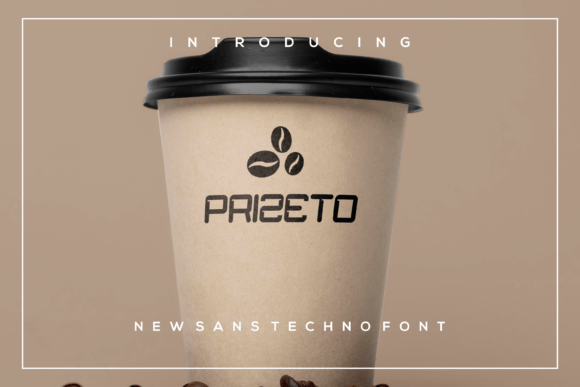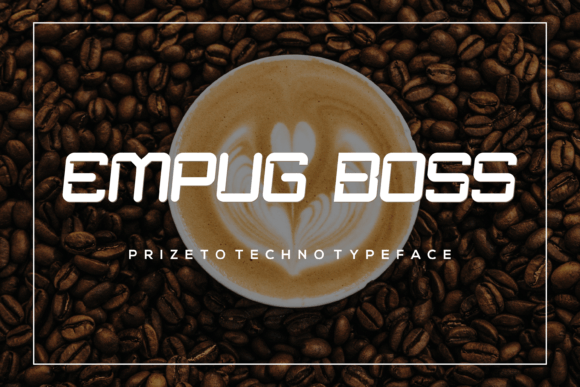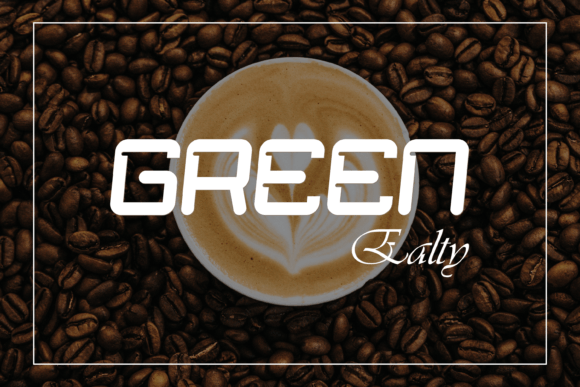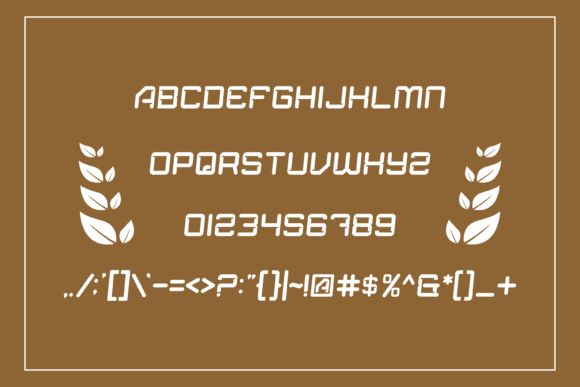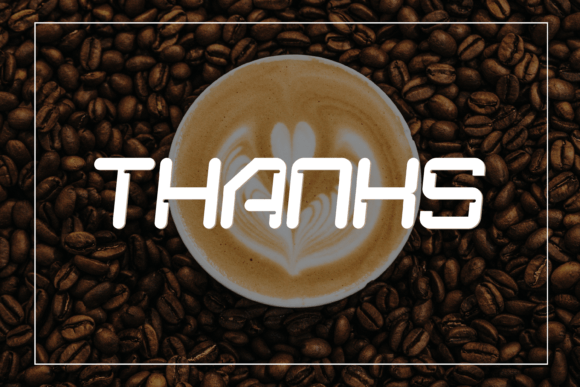
Introduction to Prizeto Font
Remember that moment when you’re working on a creative project and you just can’t find the perfect font to bring your design to life? You’ve tried countless options, but nothing seems to capture the essence of your vision. Well, we’ve got some exciting news for you – your search is over! Introducing the Prizeto Font, a high-quality, bold sans serif font designed to make your designs stand out.
Whether you’re working on a cover, banner, or any other design that needs to grab attention, the Prizeto Font is the perfect design resource. Its unique characters and sleek design make it an ideal choice for any creative project. And the best part? It’s available for a free download, so you can start using it right away.
Key Features of Prizeto Font
- Includes a range of characters, including uppercase and lowercase letters, numbers, and symbols
- Designed with a modern aesthetic, making it perfect for contemporary creative projects
Honest Review: Prizeto Font
I recently had the chance to work with the Prizeto Font and I have to say, it’s a great addition to any design resource library. As a designer, I’m always on the lookout for high-quality fonts that can elevate my creative projects.
One of the standout features of the Prizeto Font is its versatility. It works well for a variety of designs, from modern and sleek to playful and whimsical. ✨ I was able to use it for a client’s branding project and it really helped to give their identity a professional and cohesive look.
Another benefit of the Prizeto Font is that it’s free to download, making it an accessible design resource for designers of all levels. However, there are some limitations to consider. ⚠️ The font doesn’t have a transparent background, which can make it difficult to use in certain design scenarios. Additionally, the font family is limited, which may not be suitable for large-scale design projects.
Overall, I would recommend the Prizeto Font to designers who are looking for a high-quality, free font that can add a touch of elegance to their creative projects.
- Works well for a variety of design styles
- Accessible design resource for designers of all levels
Prizeto Font: A High-Quality Design Resource
Tips for Getting the Most Out of Prizeto Font
To get the most out of Prizeto Font, use it for creative projects that require a high-quality, unique font. Experiment with different font sizes and colors to create visually appealing designs. You can also combine Prizeto Font with other design elements to create a cohesive look.
Prizeto Font is commonly used in graphic design, branding, and digital marketing projects. Its high-quality design makes it ideal for creating professional-looking logos, business cards, and brochures. The font’s transparent background also makes it suitable for creating designs with complex backgrounds.
Lato is a modern sans-serif font with a transparent background, making it ideal for creative projects requiring a high-quality design resource. It’s available for free download and is suitable for web design, branding, and other design projects.
When to use: Use Lato for headings and body text in designs where a clean and modern look is desired, particularly in digital projects.